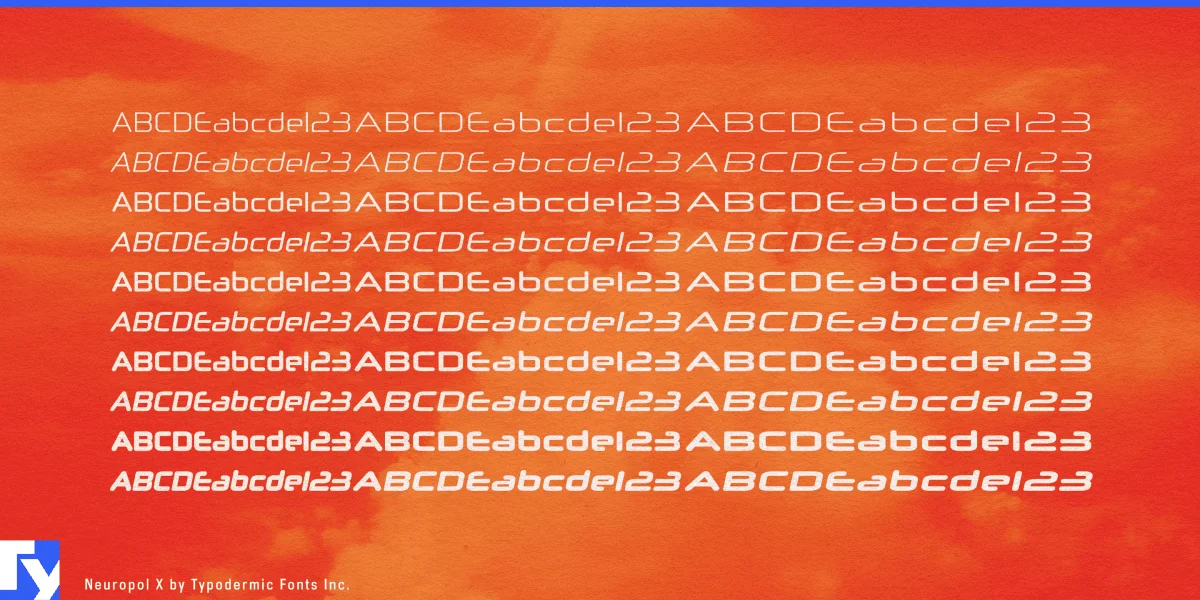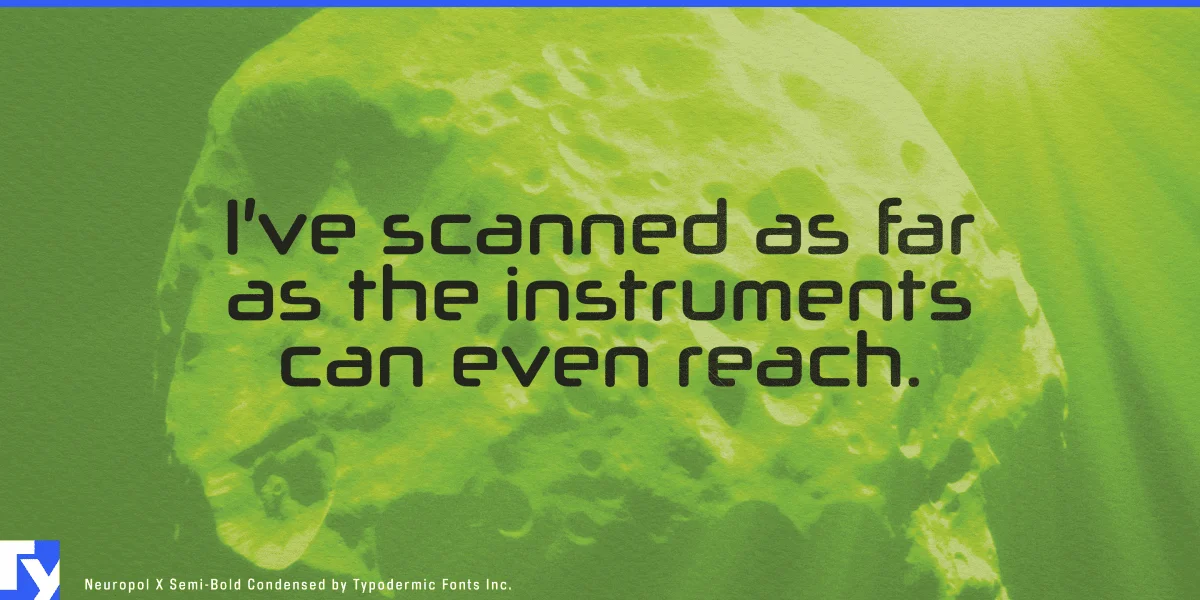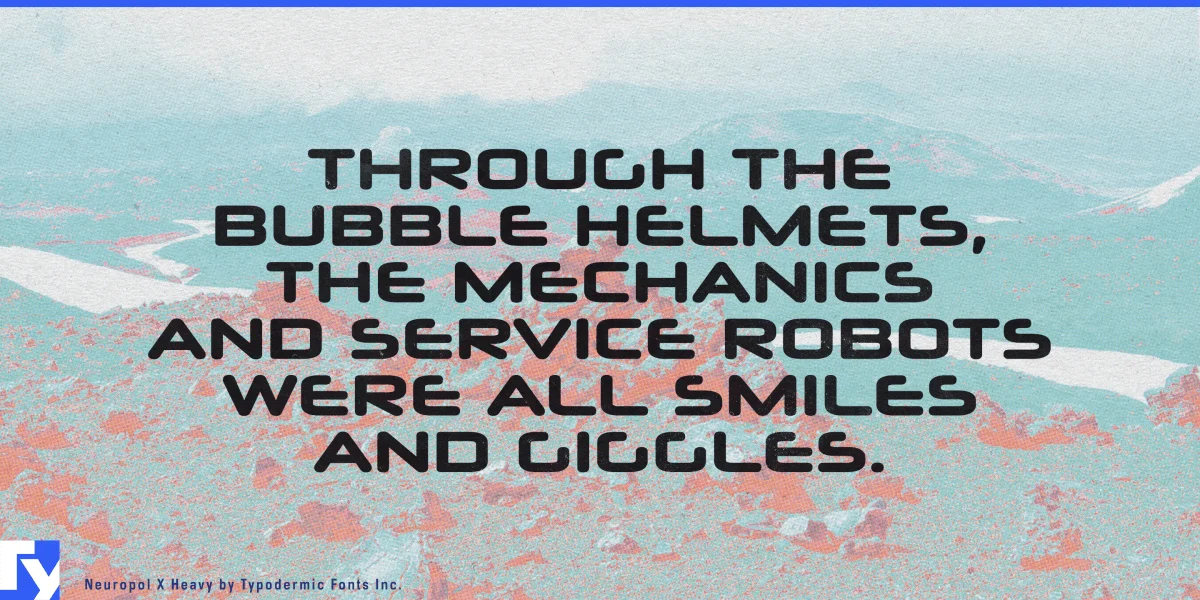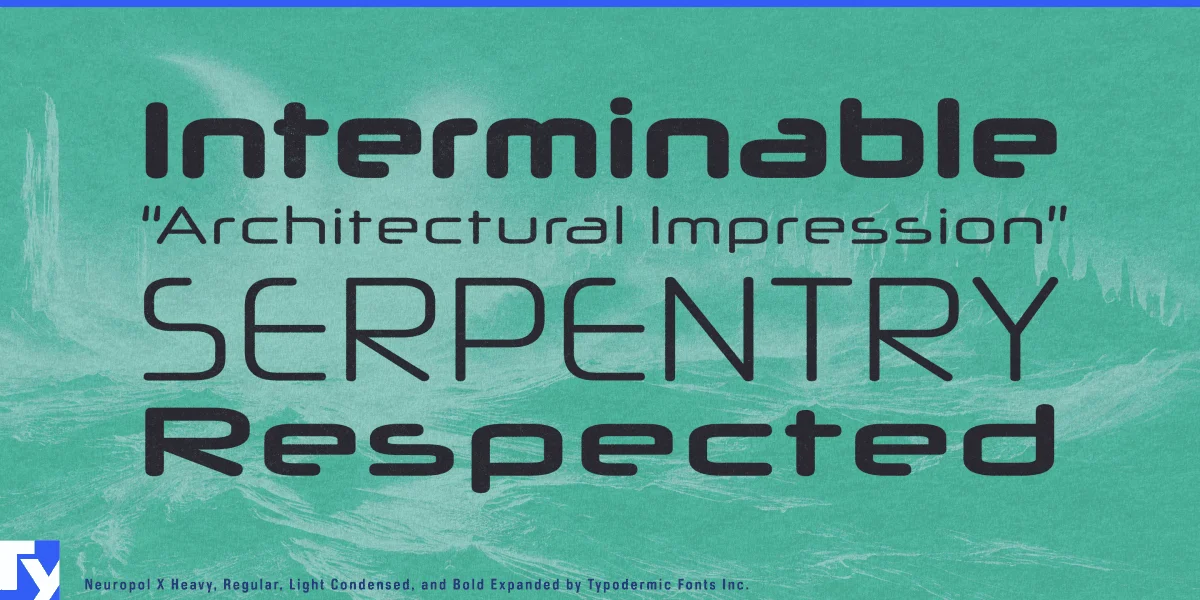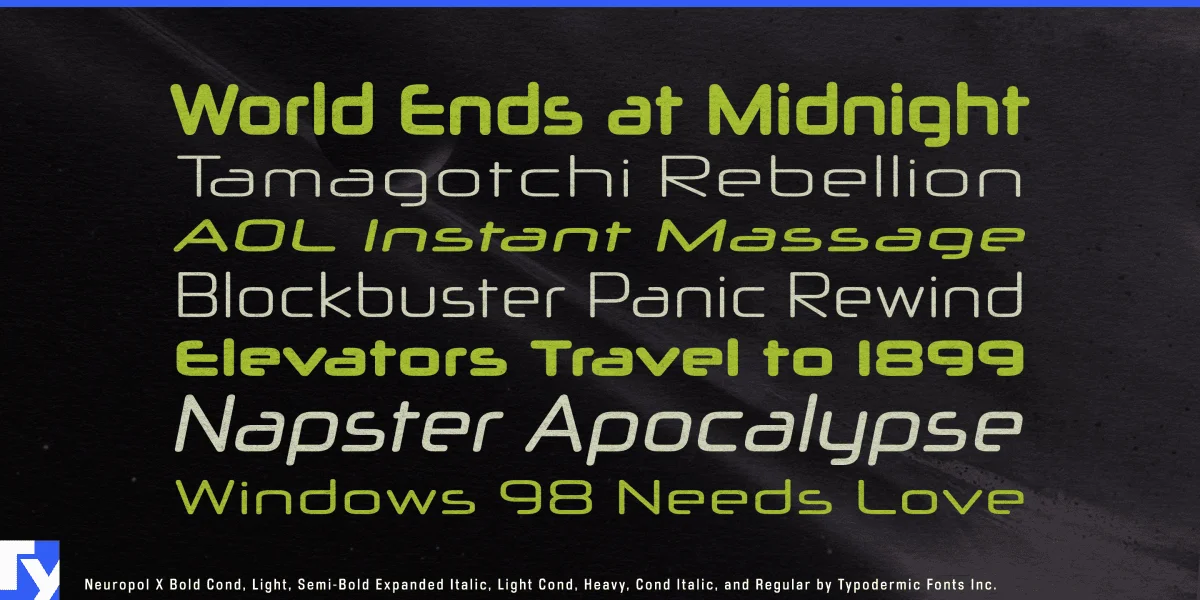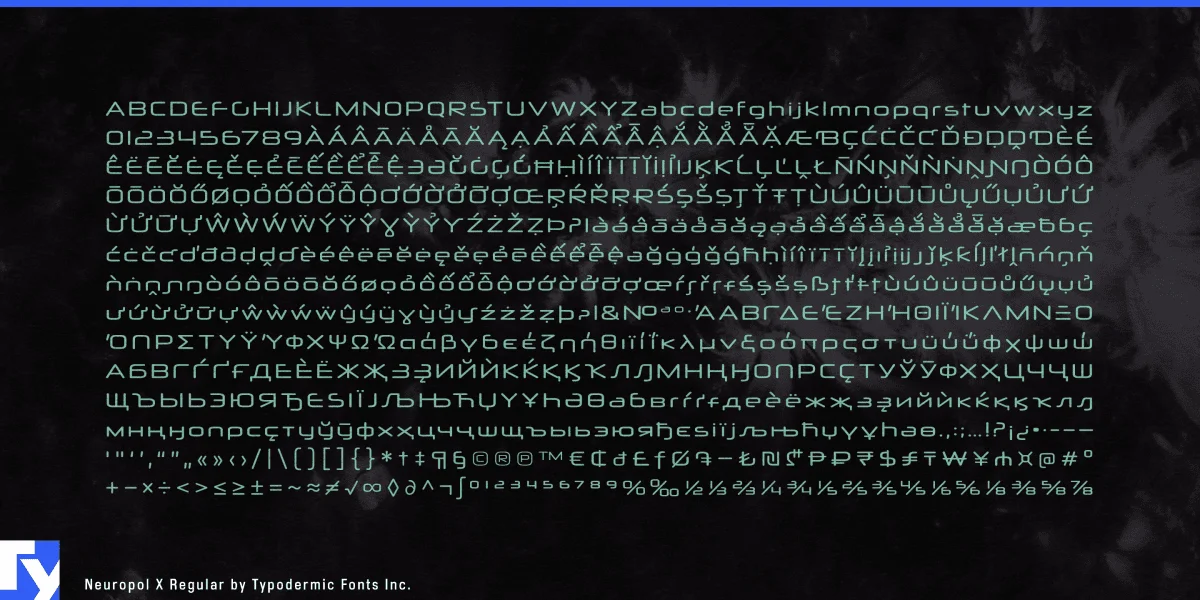
Neuropol X stands as a testament to the enduring power of visionary typography. Born from the iconic Neuropol typeface of 1996, this enhanced iteration captures the essence of Y2K optimism while evolving to meet the demands of contemporary design.
With its broad, futuristic letterforms, Neuropol X transports us to an era when technology promised infinite possibilities. The smooth, plastic-like strokes evoke the sleek gadgetry and digital interfaces that defined the turn of the millennium. Truncated curves and rounded terminals echo the aesthetics of laser beams, circuit boards, and oscilloscope readouts—visual elements that came to symbolize our collective dreams of a high-tech future. This expanded font family offers unprecedented versatility, featuring five weights, three widths, and accompanying italics. Such range empowers designers to craft everything from subtle, sophisticated layouts to bold, attention-commanding headlines. Whether you’re developing a cutting-edge website, crafting a retro-futuristic brand identity, or designing a forward-thinking publication, Neuropol X provides the typographic tools to realize your vision.
Neuropol X’s appeal transcends mere nostalgia. Its forms speak a visual language that resonates across cultures and writing systems. From the intricate accents of Vietnamese to the laser-like scripts of Greek and the techno strokes of Cyrillic, this typeface family adapts seamlessly. It’s as comfortable displaying Swedish text as it is setting German prose or Russian headlines—a truly global typeface for our interconnected world. By choosing Neuropol X, you’re not simply selecting a font; you’re tapping into a rich design legacy. It’s a typeface that has inspired countless creatives, leaving its mark on album covers, movie posters, and digital interfaces. Yet, it remains as fresh and relevant today as it was at the dawn of the new millennium.
For the designer seeking to blend retro-futuristic flair with contemporary sophistication, Neuropol X is an indispensable tool. It’s a bridge between the optimistic visions of yesterday and the cutting-edge designs of tomorrow. Elevate your projects with Neuropol X and let your typography speak volumes about your design sensibilities.